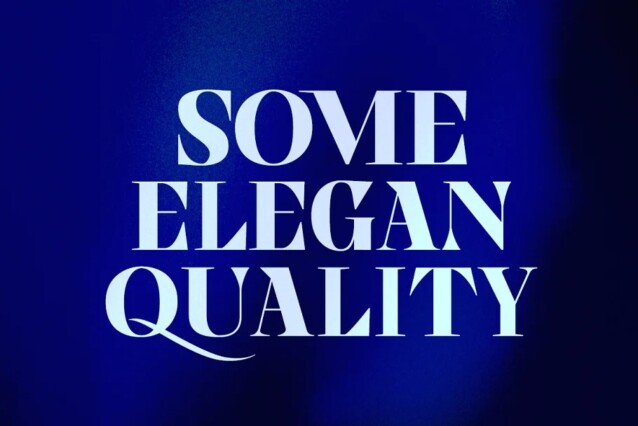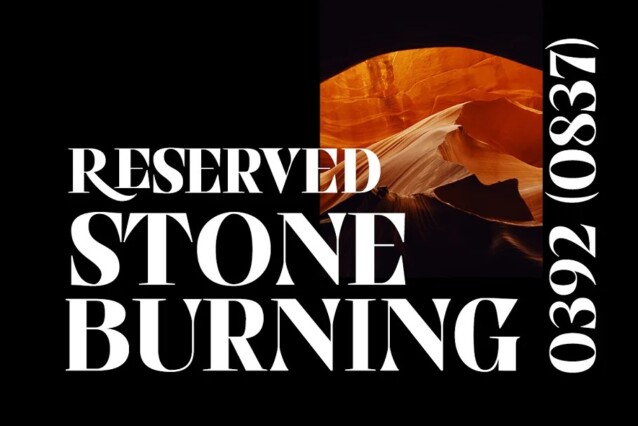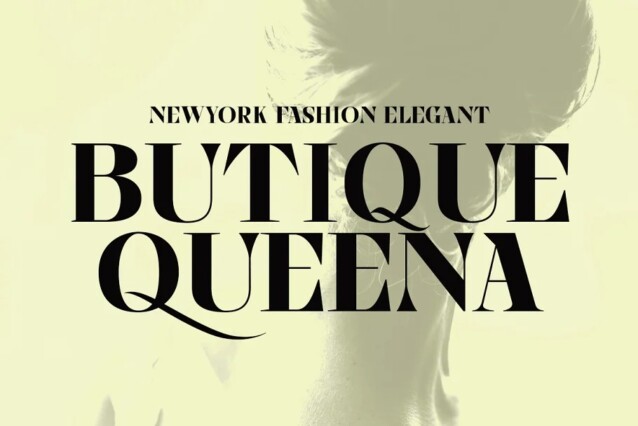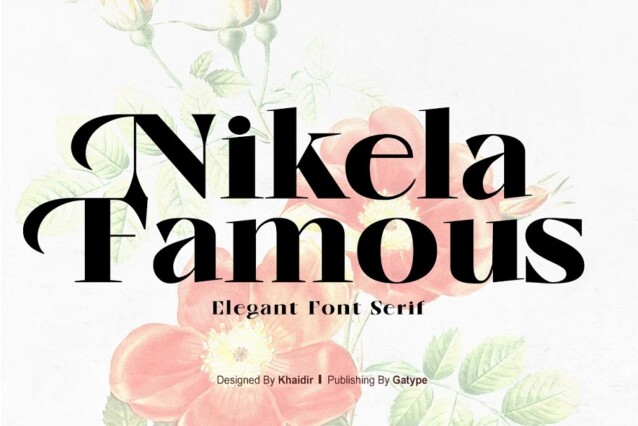
Nikela Famous Font
Nikela Famous Font is a captivating typeface with a unique and bold serif display style. Made from font designer named Gatype. The overall typeface is strong to bring order and harmony between letters. Best used as Instagram, poster, web design, magazine, logo or product.